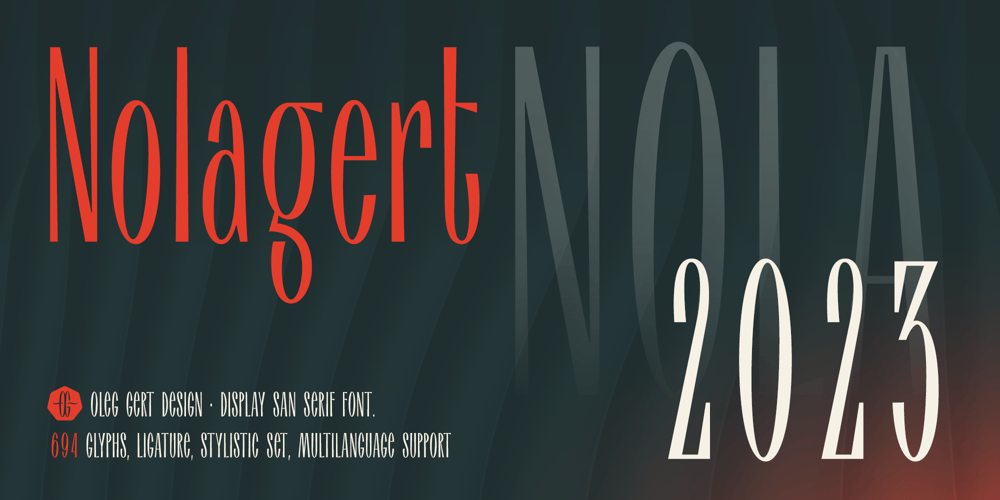
Nolagert
Nolagert font
Nolagert Font Family was designed by Oleg Gert and published by Oleg Gert. Nolagert contains 1 styles and family package options. The Nolagert display san serif font also has a traditional and at the same time modern, playful and elegant look.Font Nolagert is an amazing creation that combines two cultural eras: I was inspired by the typography traditions of the Soviet Union of the 60s and refracted by modern requirements.It is a kind of bridge between the past and the present, combining classic elegance and modern playfulness.